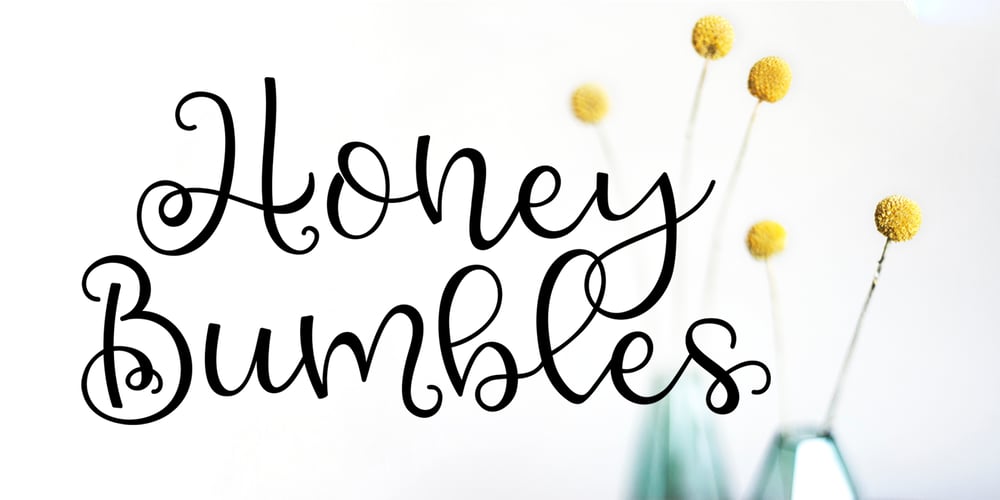
Honey Bumbles Font Family was designed by Rachel White and published by Rachel White Art. Honey Bumbles contains 1 styles and family package options. I am crazy about my font, Honey Bumbles! It has sweet curls, very round loops, and lots of fun alternates and ligatures to create amazing designs. It is super smooth. Every character is special, and has unique curves, swirls, and loops. Includes: – alternate glyphs for selected characters – initial lowercase alternates for shown characters – terminal lowercase alternates for shown characters – ligatures for selected double letter combinations – 4 options for ampersands